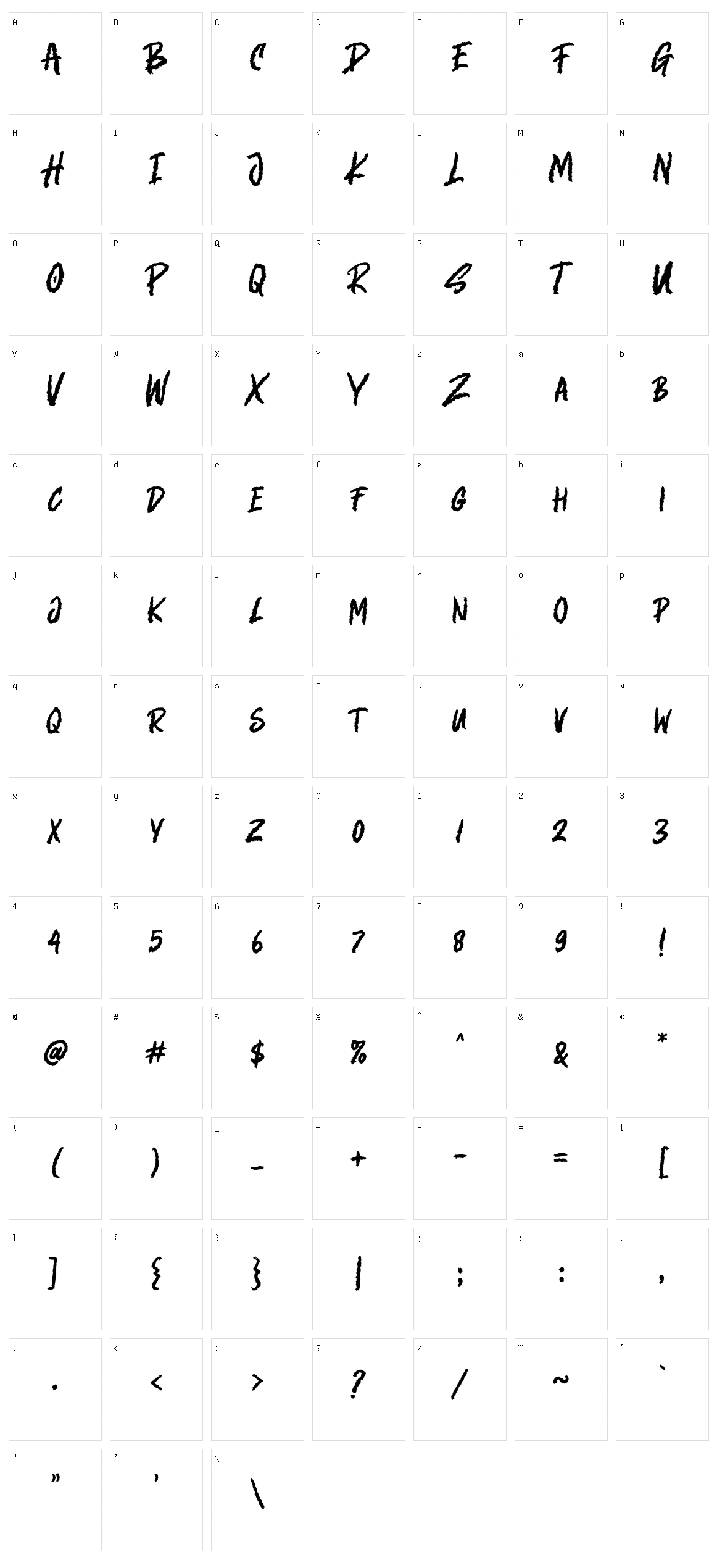
The free font Brocken is carefully designed by Weape Studio, showcasing a thoughtful balance of creativity and usability and falls under the Trash font style. When you download the ZIP file, it contains only 422.94 KB of font files, making it lightweight and quick to download. Please review the license details below to understand permitted usage and distribution rights. If license information is not available, we recommend using this font for personal projects only or contacting the author directly for commercial usage permissions.
Brocken - 2020 by Weape Design